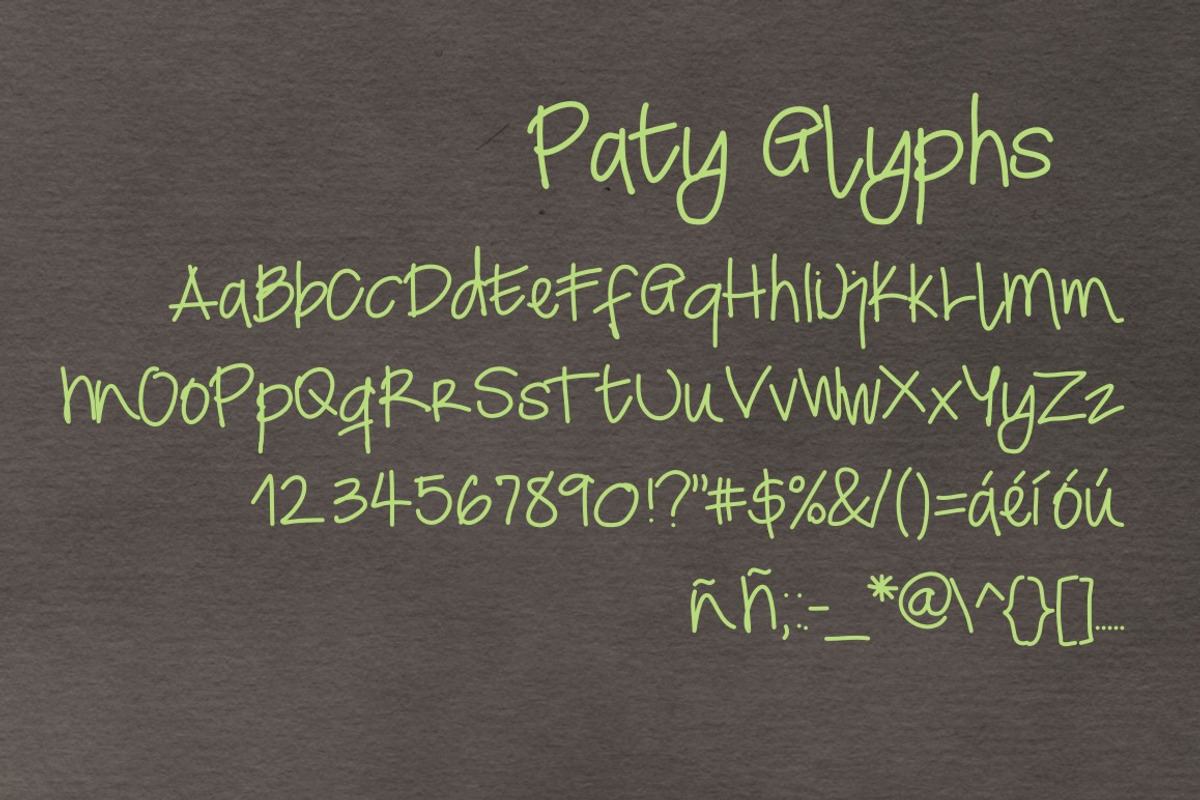
Please note, to use this font for commercial purposes, you must purchase the full version. Paty is a stylish and elegant script font that brings a sophisticated and handwritten feel to your designs. With its flowing curves and graceful letterforms, this font is perfect for creating wedding invitations, logos, branding, and more. Whether you're designing for a luxurious brand or a personal project, Paty adds a unique, refined touch to your work. Test it out and enjoy free download access for personal use. Experience the beauty and elegance of Paty Font Free Download before purchasing the commercial license. Enhance your designs with the charming, handwritten style of Paty.